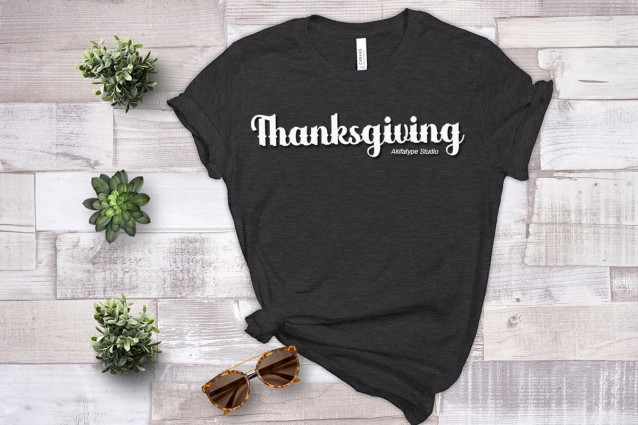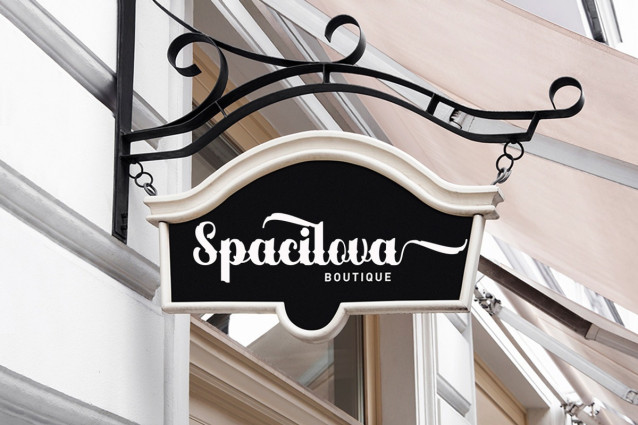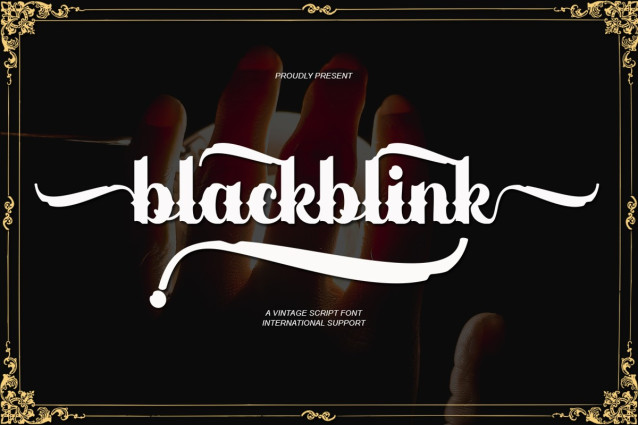
Blackblink Font
Blackblink Font is a beautiful vintage calligraphy typeface, I hope you will be interested in this font, if you want to use it for your work.This font can be used easily and simply because there are many features in it. contains a complete set of uppercase and lowercase letters, a wide variety of punctuation marks, numbers, and multilingual support. fonts also contain a lot
ligatures and many others contain alternative Style Sets like the heart swash alternative.